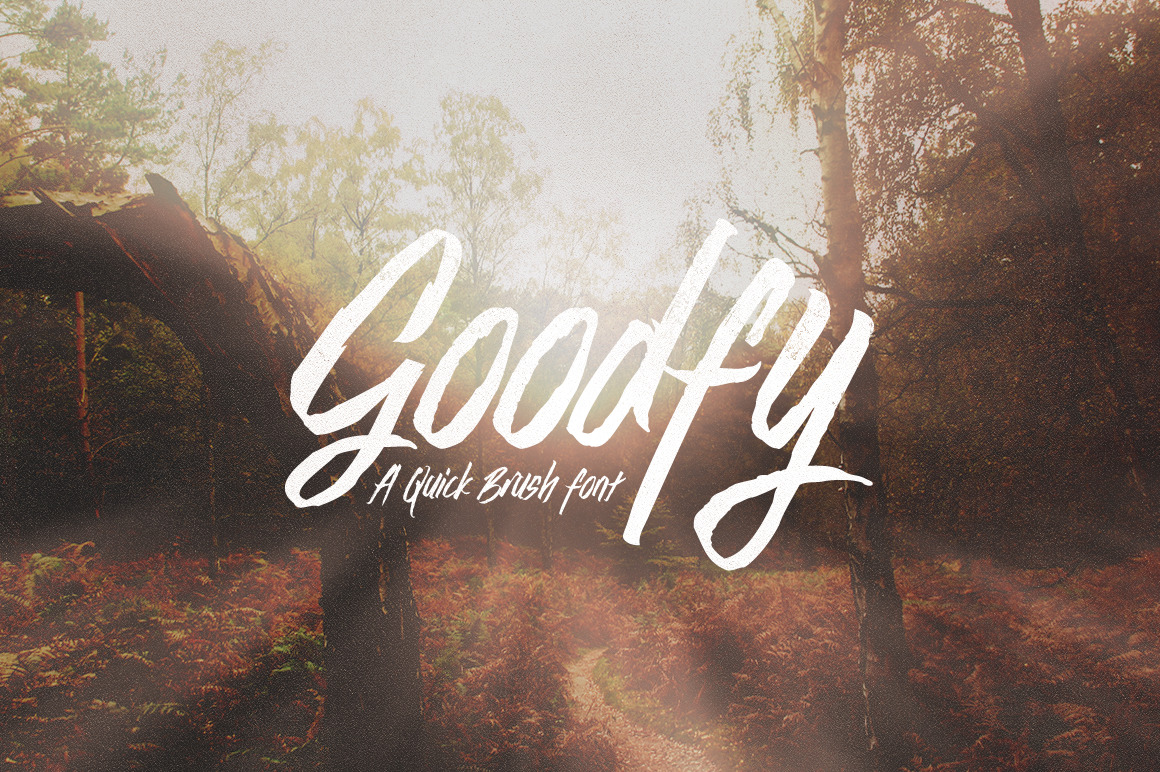
Goodfy - A Rush Handwritten Font
Goody is a quick brush typeface based on the original lettering using brushpen. This font is designed for handwriting design, photography, t-shirt or everything who need rush feel and works good for Uppercase and Lowercase too.